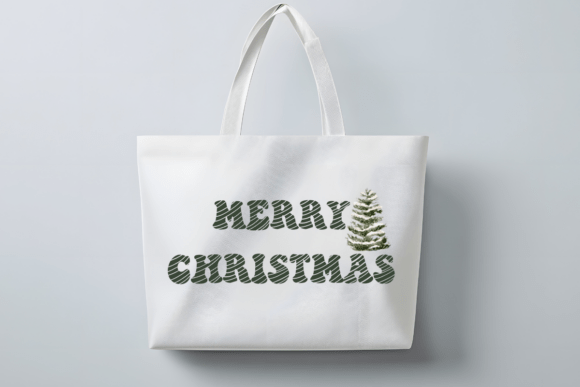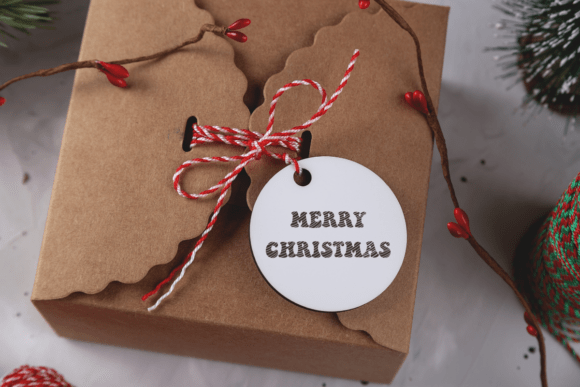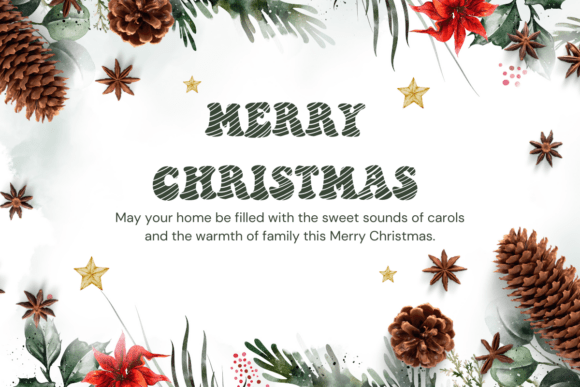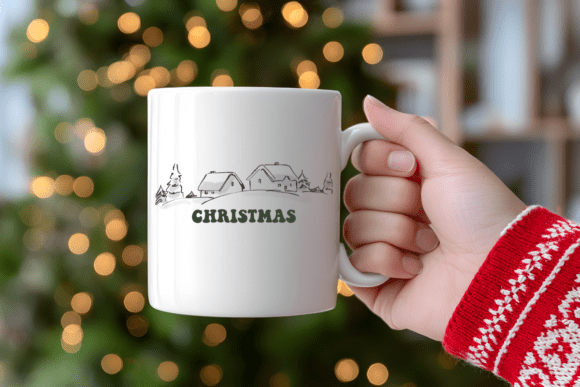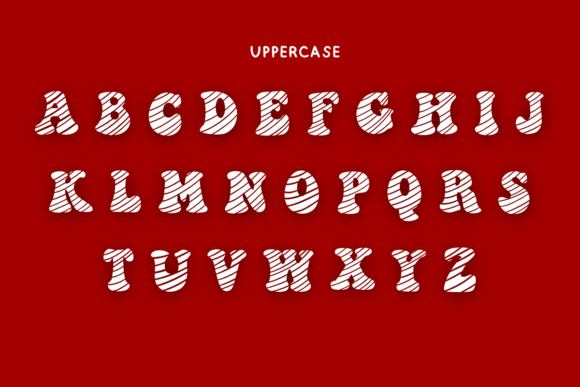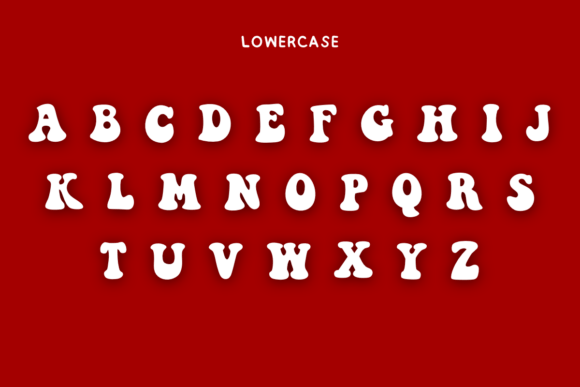
The Sweetest Gift for Designers: Christmas Candy Stripes Font
Do you ever find yourself doodling festive patterns during the holiday season, dreaming up magical moments and enchanting designs? If so, you’re not alone! For many of us, Christmas is a time of creativity and joy, when our imagination knows no bounds. And what better way to capture that festive spirit than with a font that’s as sweet as it is stylish?
Enter Christmas Candy Stripes Font, the perfect companion for any design project. This delectably whimsical font is designed to bring a touch of magic to your work, whether you’re crafting heartfelt greeting cards, designing bespoke mugs, or simply jotting down your thoughts. Its versatility knows no bounds, making it a valuable addition to any designer’s toolkit.
Key Features of Christmas Candy Stripes Font
- Unique Characteristics: The font features a distinctive candy stripe pattern, making it perfect for festive and holiday-themed designs.
- Character Set: The font includes a comprehensive set of characters, including uppercase and lowercase letters, numbers, and punctuation marks.
Review of Christmas Candy Stripes Font
Overall, I think the Christmas Candy Stripes Font is a fun and festive addition to any holiday design project. ✨ It’s perfect for creating a playful and whimsical atmosphere, and it’s sure to put a smile on your customers’ faces. The font is well-suited for use in digital designs such as social media graphics, email headers, and website banners.
The font’s design features a bold and eye-catching striped pattern, complete with festive holiday colors. The characters are well-formed and easy to read, making it a great choice for text-heavy designs. ✨ I also appreciate the fact that the font is highly customizable, allowing you to adjust the colors, size, and spacing to fit your design needs.
- Fun and festive design perfect for holiday projects
- Well-formed characters and easy to read
- Highly customizable with adjustable colors, size, and spacing
- May be too bold and eye-catching for more subdued designs
- Not suitable for use in formal or professional settings
- Some characters may be difficult to read in smaller sizes
- ⚠️ Not ideal for use in body text due to its playful nature
Overall, I would give the Christmas Candy Stripes Font 4 out of 5 stars. While it may have some limitations, it’s a great choice for designers looking to add a touch of holiday cheer to their projects. With a little creativity and customization, this font is sure to be a hit with your customers.
Some common use cases for Christmas Candy Stripes font include:
- Creating festive holiday cards and invitations.
- Designing holiday-themed social media graphics and ads.
- Adding a playful touch to holiday-themed packaging and branding.
Remember to experiment with different font sizes, colors, and combinations to get the most out of this fun and festive font.